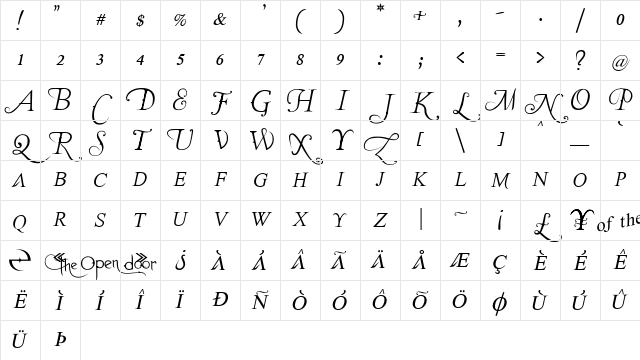
Complete The Last Font I'm Wasting On You Italic glyph index. Displaying only characters natively supported by The Last Font I'm Wasting On You Italic font.
The Last Font I'm Wasting On You is a composed and adaptable typeface that performs quietly and consistently across a wide range of design contexts. The slanted form adds forward momentum and visual energy.
Pro Tip: Use The Last Font I'm Wasting On You for emphasis, pull quotes, and subheadings where its slanted energy can add rhythm to the layout.